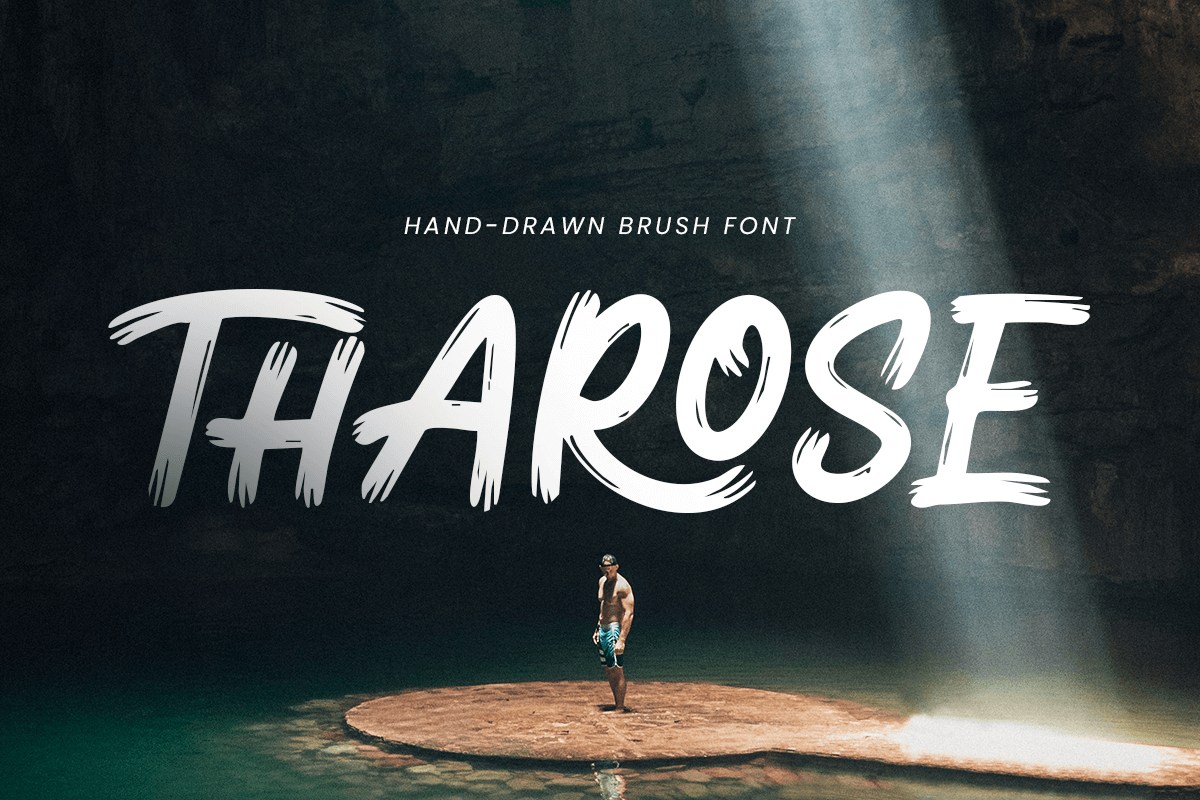
Tharose
-Handdrawn Brush FontTharose - Handdrawn Brush Font
THAROSE is a handdrawn brush font designed to bring a casual, artistic, and expressive touch to your creative projects. Ideal for logos, posters, social media, packaging, and branding, it combines a natural hand-brushed style with bold readability.
With its dynamic strokes and organic flow, THAROSE adds personality and energy to both print and digital designs, making it perfect for designers seeking a handcrafted, authentic look.
THAROSE – Handdrawn Brush Font Features
Bold and artistic handdrawn brush characters
Perfect for logos, posters, branding, and creative projects